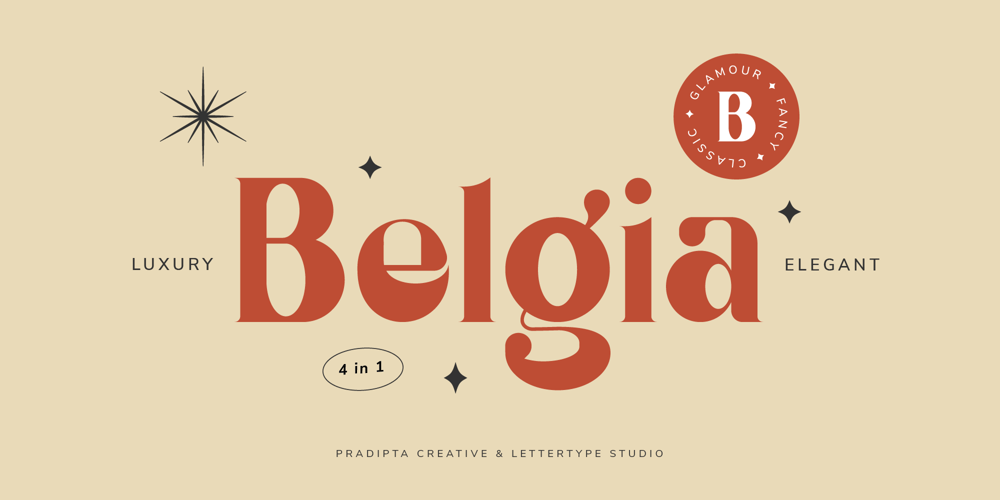
Belgia Modern Classic
Belgia Modern Classic font
Belgia Modern Classic Font Family was designed by Diki Pradipta Tri Atmojo and published by Lettertype Studio. Belgia Modern Classic contains 4 styles and family package options. Belgia Serif is a classic, glamorous and fancy font. This font will be perfect for logo design, branding, clothing, signage, posters, wedding invitations and so much more! My goal in creating this font was to create a mix of serif fonts with modern and classic styles, which will help your project to be more luxurious and elegant. Don’t Miss Out!Belgia Comes With: Lowercase and Uppercase Stylistic Ligature Stylistic Alternate Numerals & Punctuation Accented characters Belgia Font Style (4 styles) Multiple Languages Supported I Hope You Enjoy it!Diki Pradipta Tri Atmojo ^Pradipta Creative & Lettertype Studio